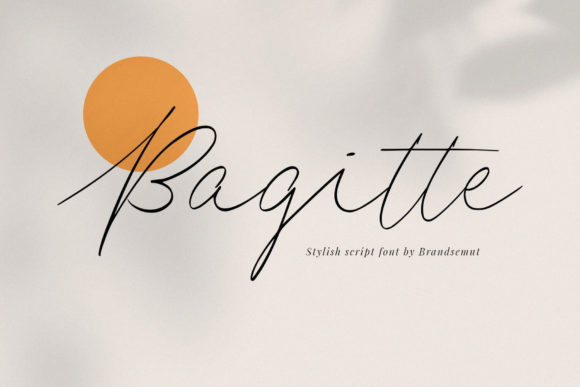
Bagitte Font
About Bagitte Font
Bagitte is a feminine handwritten font that you can use to perfect your design. This beautiful font is uitable for a wide variety of creative projects and ideas. All you have to do is add it to your work and watch stand out!